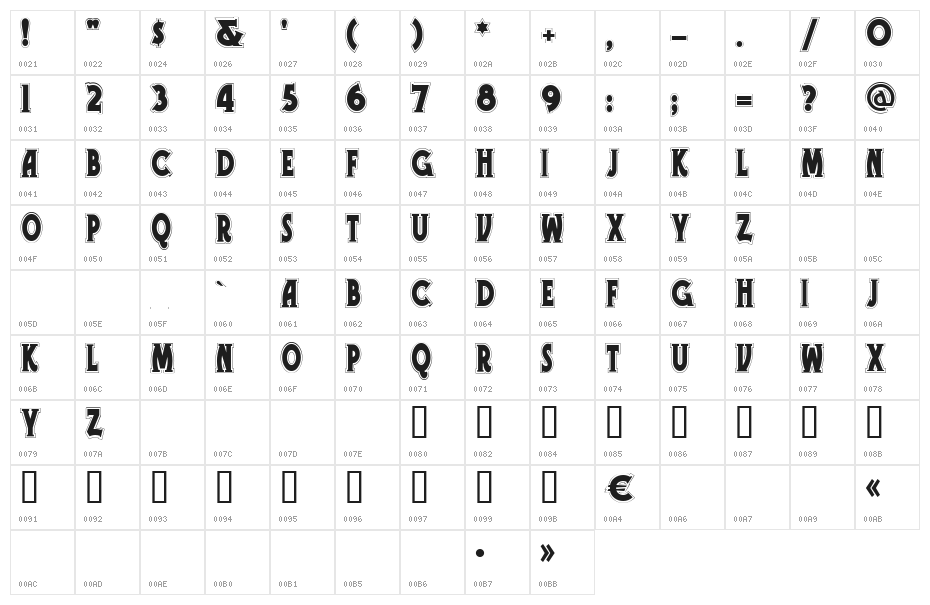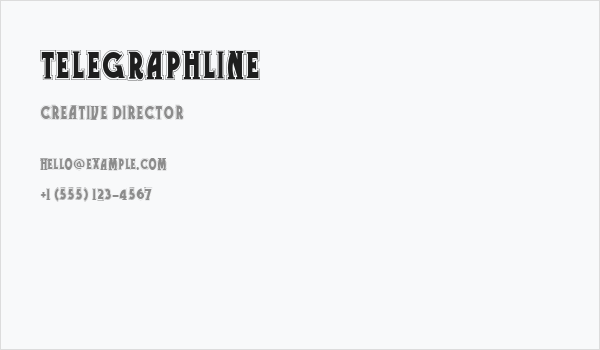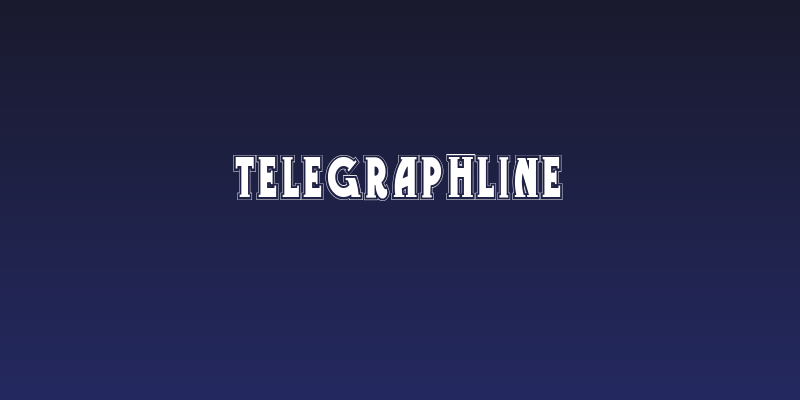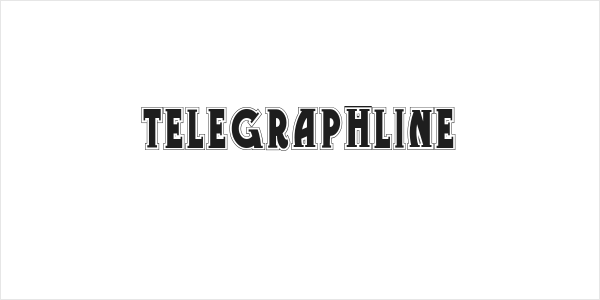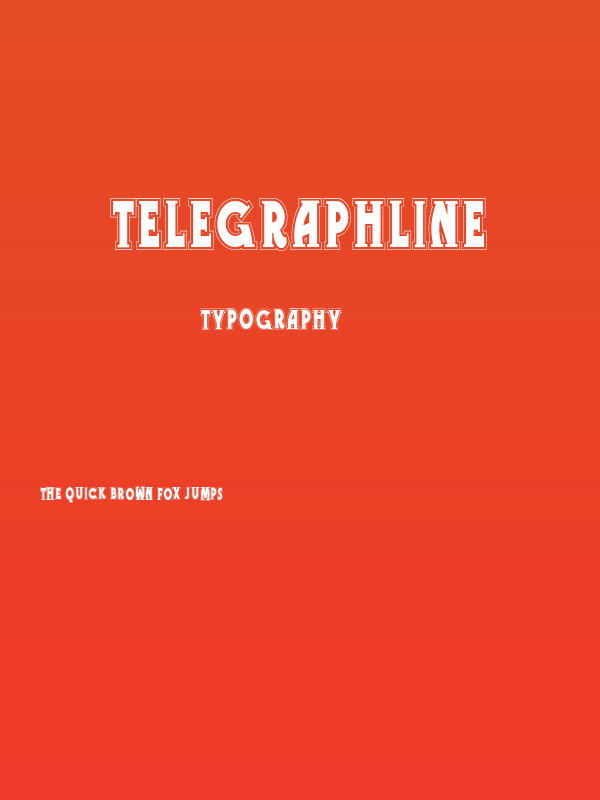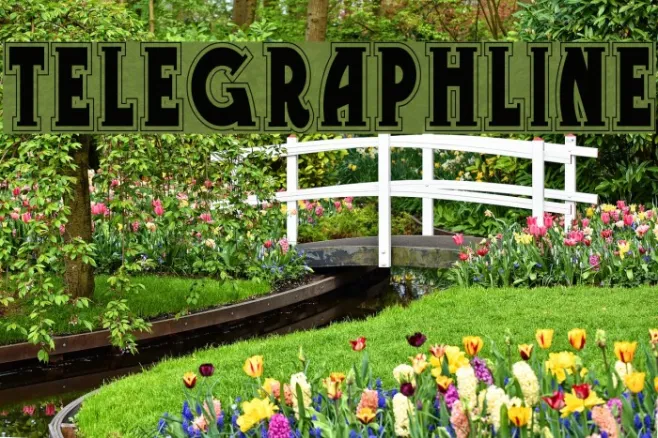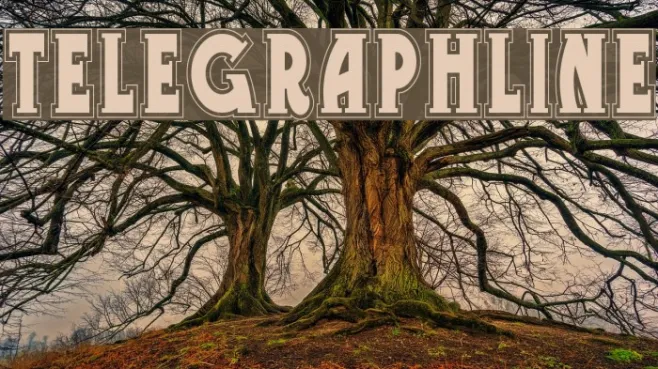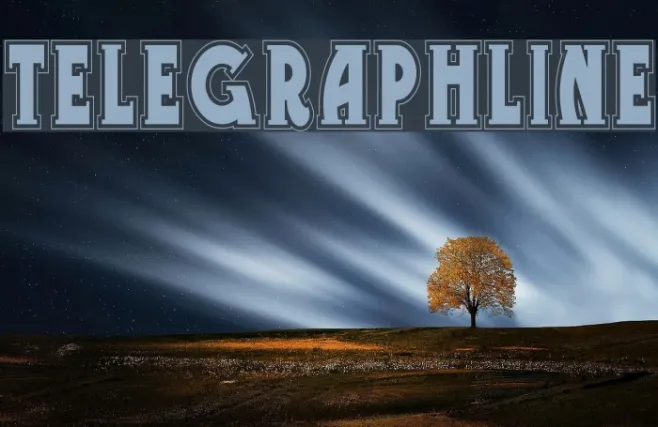
TelegraphLine Font
TelegraphLine Description
This font features a bold and striking design with a strong presence. The characters are outlined, creating a shadow effect that adds depth and dimension. The uppercase letters are particularly prominent, with sharp angles and a slightly condensed form that enhances their impact. The numbers and special characters maintain this bold style, ensuring consistency across all elements. The font's decorative nature makes it ideal for attention-grabbing headlines or titles. Its unique style is reminiscent of vintage signage, offering a nostalgic yet powerful aesthetic.
| Proposed Projects | Ideal for vintage-themed posters, eye-catching headlines, or branding that requires a strong, memorable typeface. |